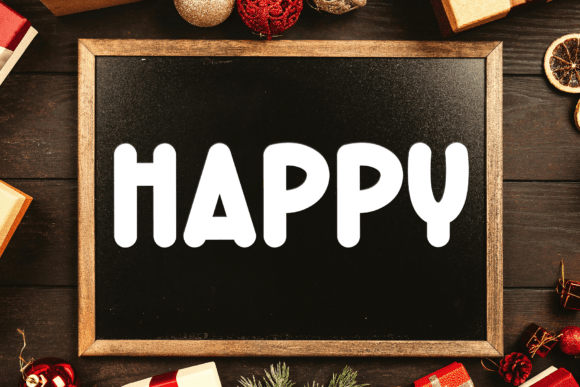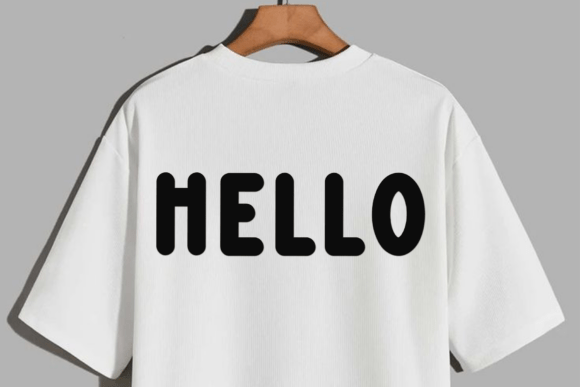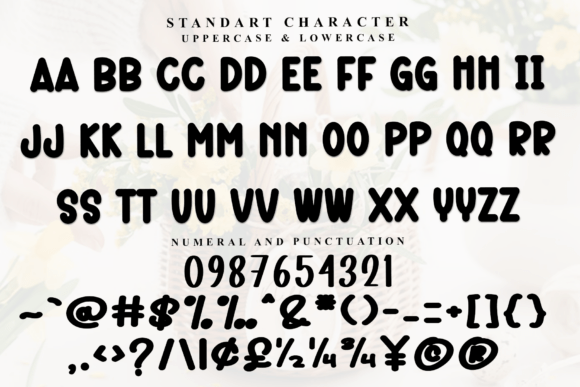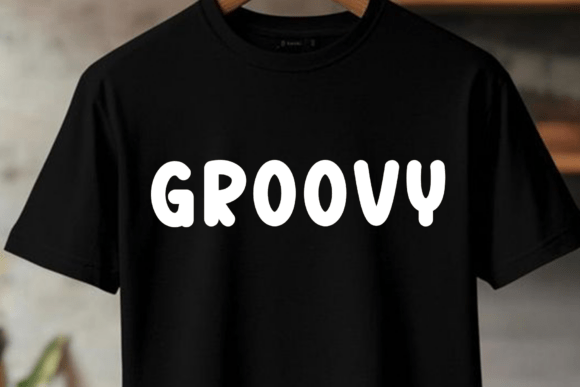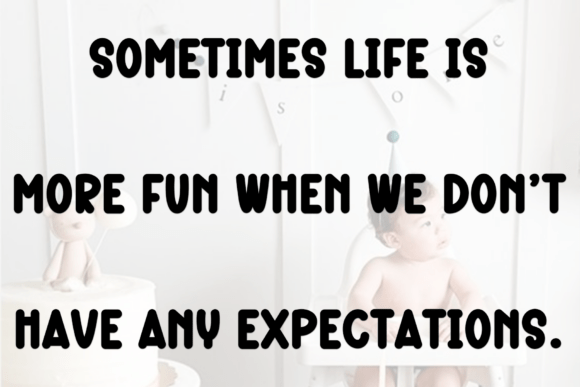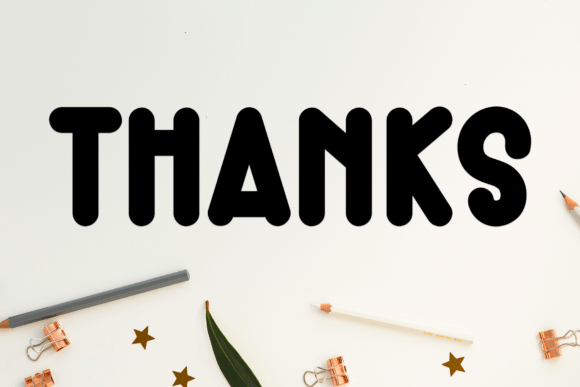
Introducing Dear Santa Font: A Beautiful and Versatile Typeface for Designers and Crafters
Are you looking for a font that can add a touch of magic to your design projects, crafts, and creative works? Look no further than the Dear Santa font, a stunning and eye-catching typeface that is sure to captivate your audience. With its soft, unique touch and distinctive strokes, this font is perfect for designers, crafters, and artists who want to create something special.
The Unique Characteristics of Dear Santa Font
Dear Santa font is designed with a special character that sets it apart from other fonts. Its soft and unique touch gives it a distinctive look that is both meaningful and versatile. The font features various characters that can be used to create a wide range of designs, from festive holiday projects to beautiful crafts and artistic creations.
Dear Santa font is ideal for designers who want to create stunning visual content, such as brochures, posters, and social media graphics. Its unique and eye-catching design makes it perfect for crafts, such as handmade cards, gift tags, and decorations. The font’s versatility also makes it suitable for a wide range of artistic and creative fields, including scrapbooking, journaling, and mixed media art.
Enhance Your Designs with Dear Santa Font
With Dear Santa font, you can enhance your designs and make them appealing to a wide range of audiences. Its natural and soft look makes it perfect for designs that require a personal touch, such as invitations, announcements, and greeting cards. The font’s distinctive strokes and unique character also make it suitable for designs that require a bold and eye-catching look, such as posters, flyers, and banners.
Tips for Using Dear Santa Font
Here are some tips for using Dear Santa font in your design projects and crafts:
- Use it for festive holiday projects, such as Christmas cards, gift tags, and decorations.
- Pair it with other fonts to create a unique and eye-catching look.
- Use it for handmade crafts, such as scrapbooking, journaling, and mixed media art.
In conclusion, Dear Santa font is a beautiful and versatile typeface that is perfect for designers, crafters, and artists who want to create something special. Its soft, unique touch and distinctive strokes make it a standout font that can add a touch of magic to your design projects, crafts, and creative works. With its compatibility with various applications and platforms, this font is ideal for a wide range of products and artistic and creative fields. So why not give it a try and see how it can enhance your designs?
Get Ready to Make Your Designs Merry and Bright!